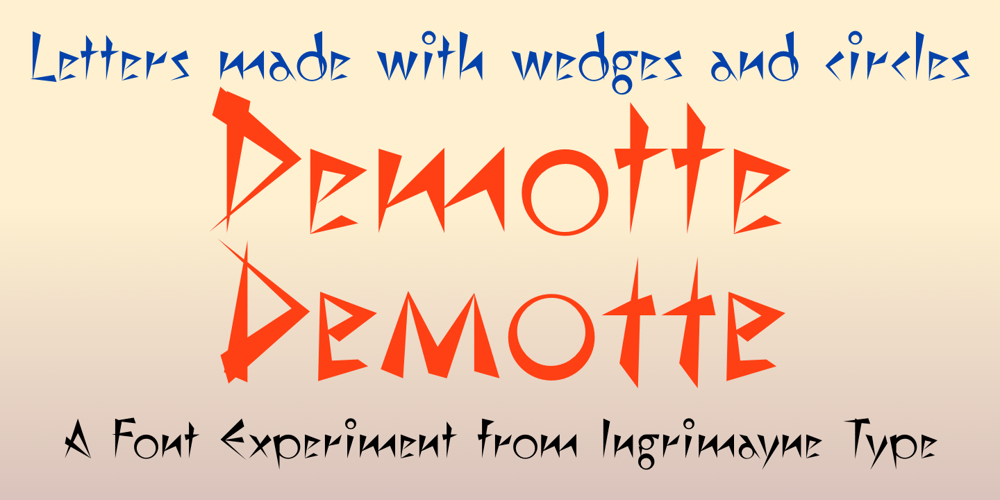
Demotte Font Family was designed by Robert Schenk and published by Ingrimayne Type. Demotte contains 3 styles and family package options. Demotte is a display face constructed from triangular blocks (wedges) and some circles. It comes in two styles. In one style the triangular blocks point up so that the letters are bottom heavy, and in the other the blocks point down so that the letters are top heavy. Also included in the family is a distorted version of the design.